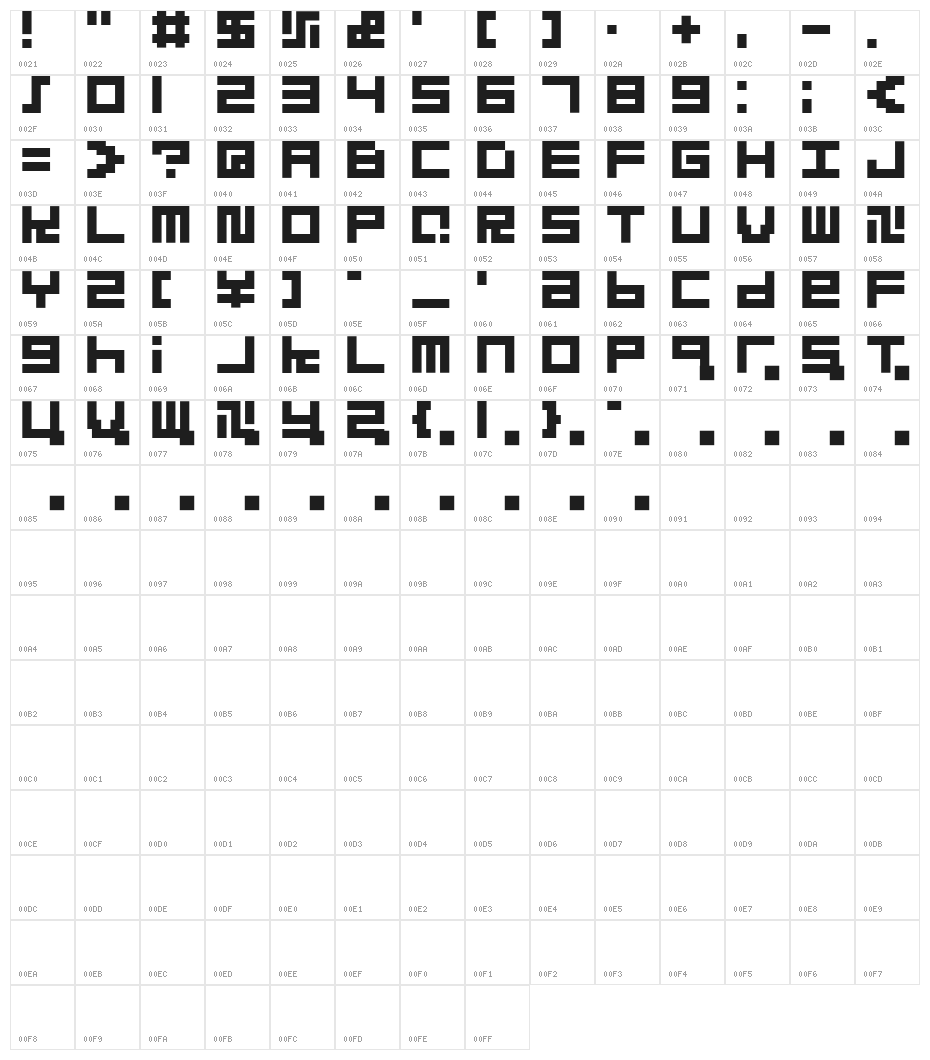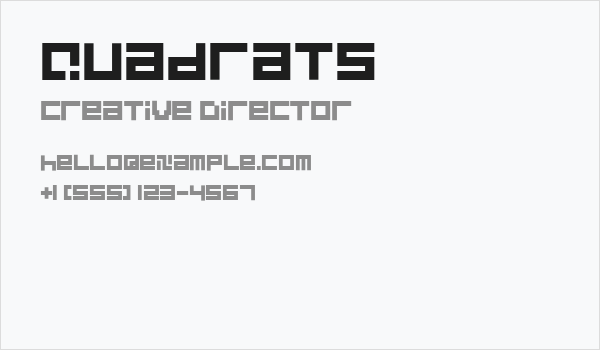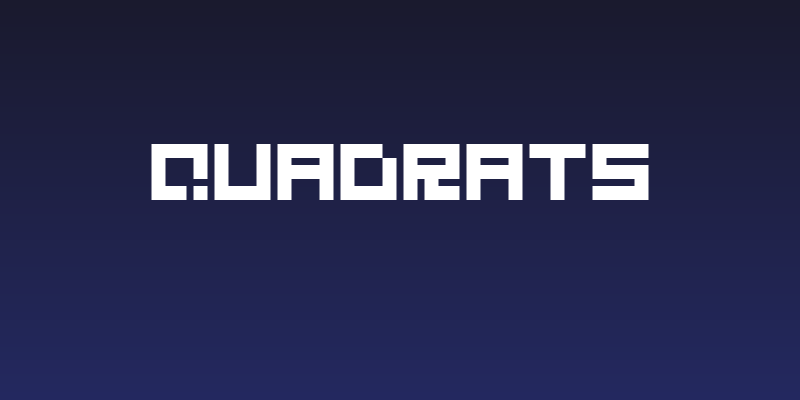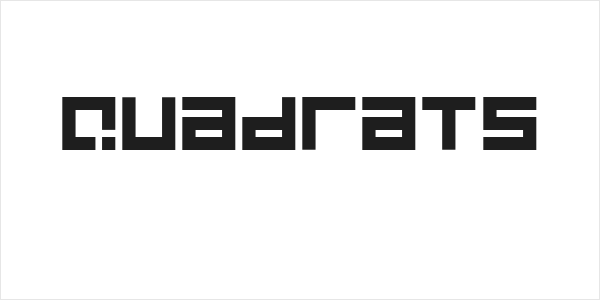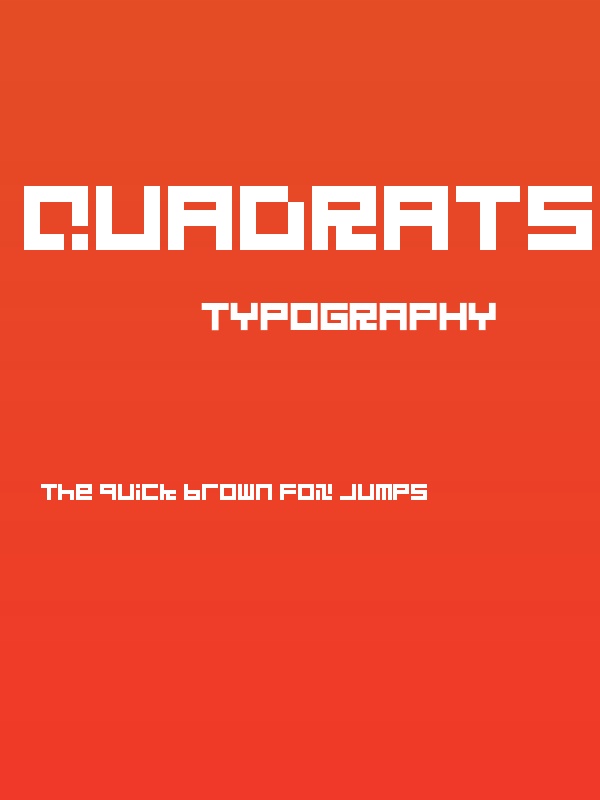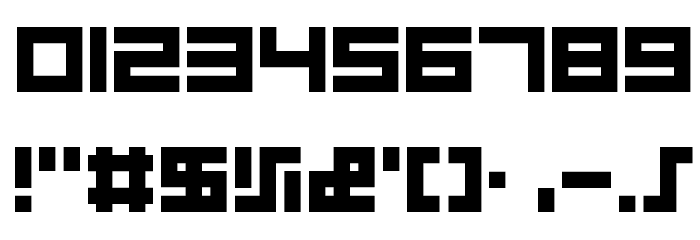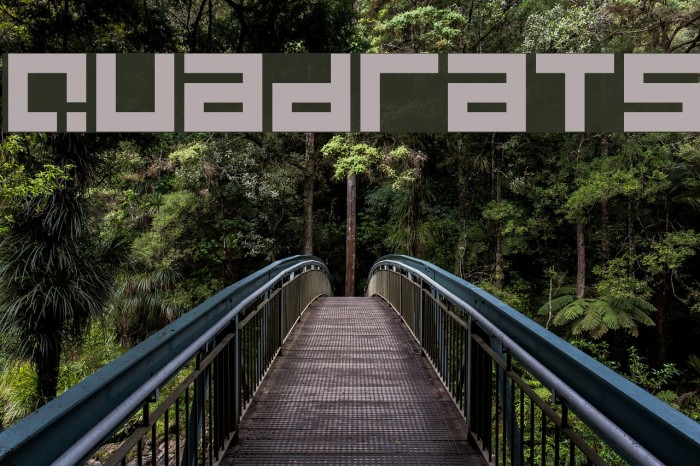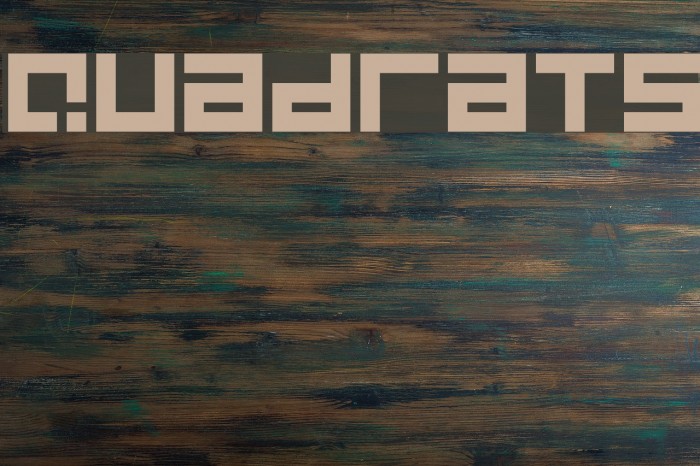
Quadrats Font
Quadrats Description
This font features a bold, geometric design with a strong emphasis on angular shapes and straight lines. Each character is constructed with a uniform thickness, creating a cohesive and structured appearance. The uppercase and lowercase letters maintain a consistent height, contributing to a monospaced feel. The numbers and special characters follow the same design principles, ensuring visual harmony across all elements. The font's blocky style is reminiscent of digital or pixelated text, making it suitable for modern and tech-oriented projects. Its distinct and eye-catching design makes it ideal for headlines or display purposes where a futuristic or industrial aesthetic is desired.
| Proposed Projects | Ideal for tech-themed designs, video game graphics, futuristic branding, and digital interfaces. |